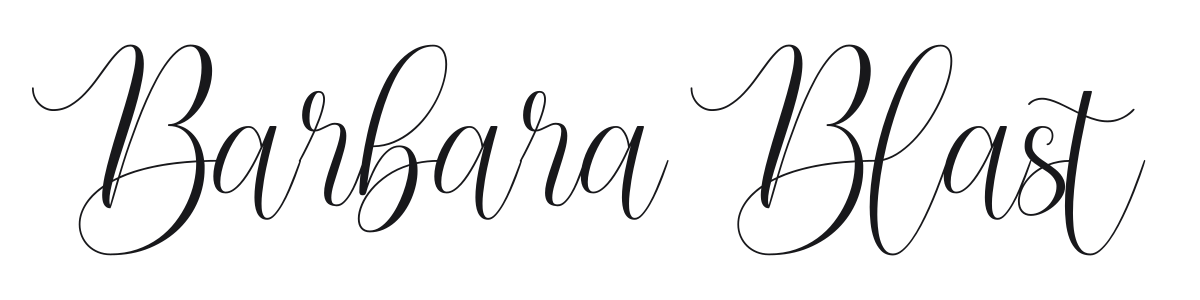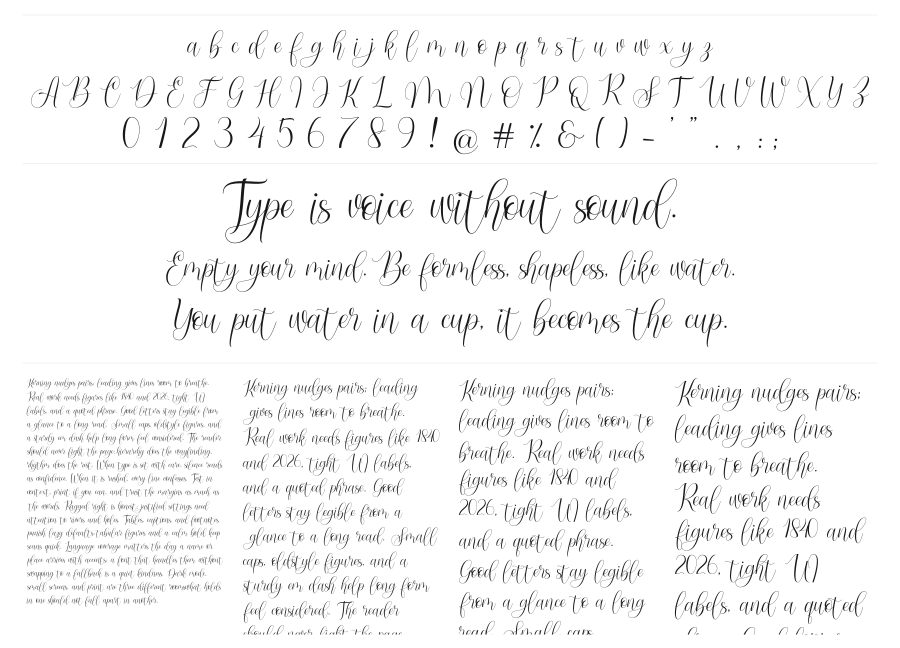
Barbara Blast
Barbara Blast is a flowing formal script rooted in copperplate calligraphy, with high stroke contrast and sweeping loops that give it a distinctly romantic energy. The generous ascenders and swash details bring a handcrafted warmth while keeping the overall feel polished and refined. It works beautifully for wedding stationery, boutique branding, and any context where elegance is the brief.